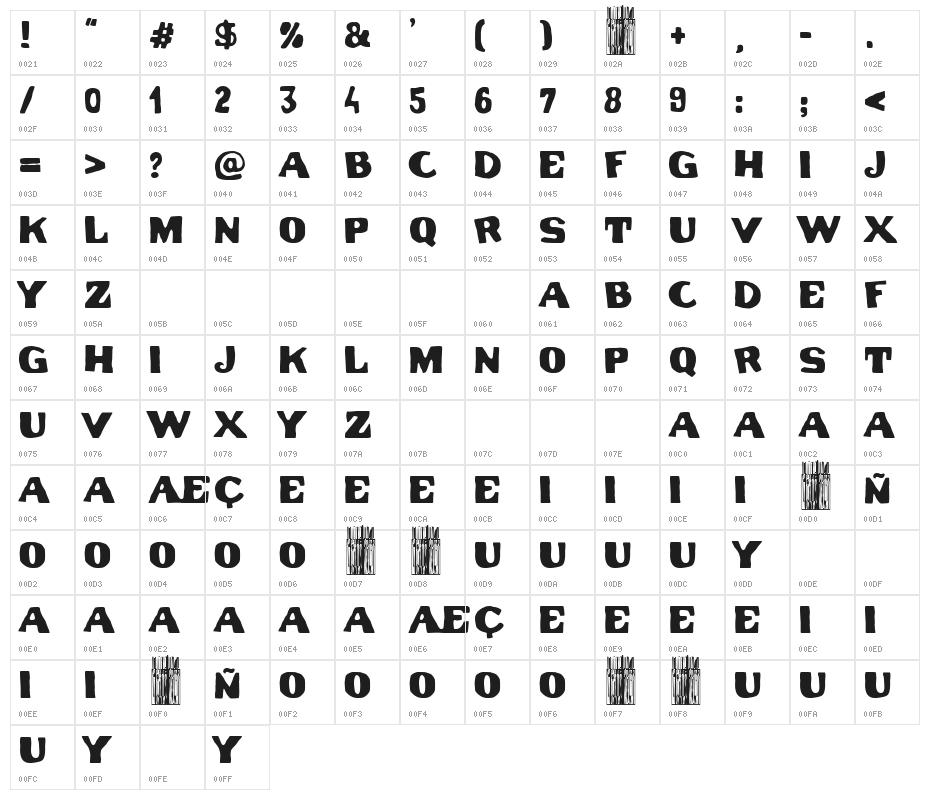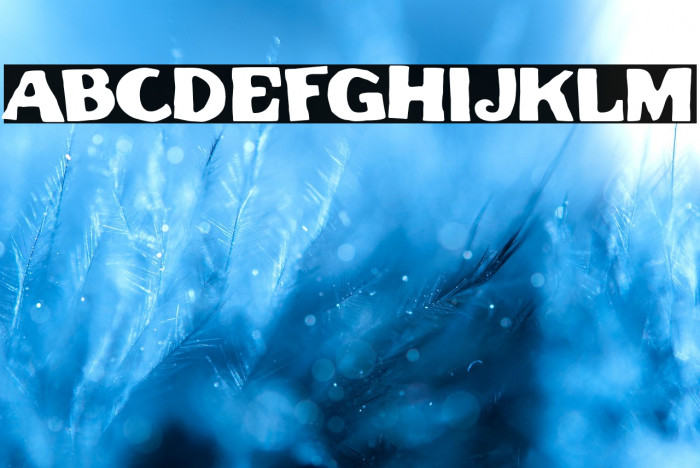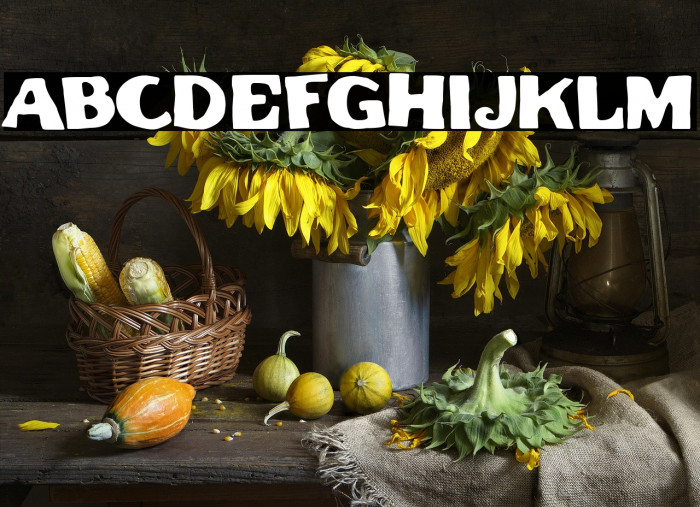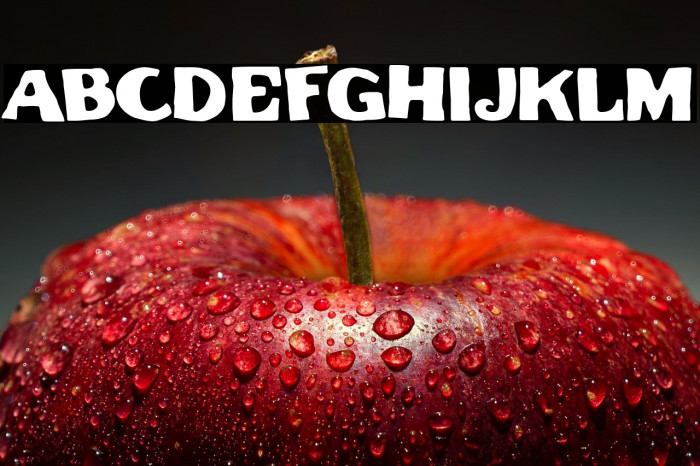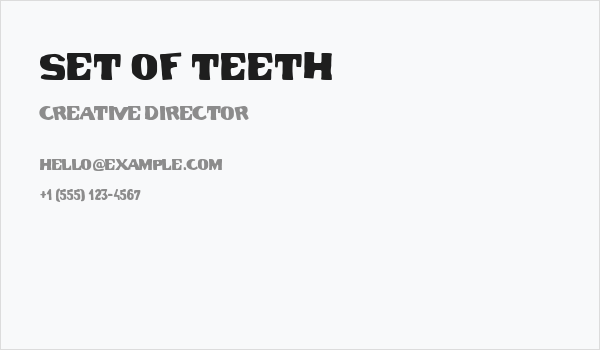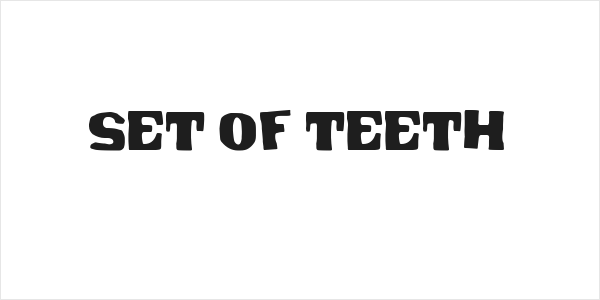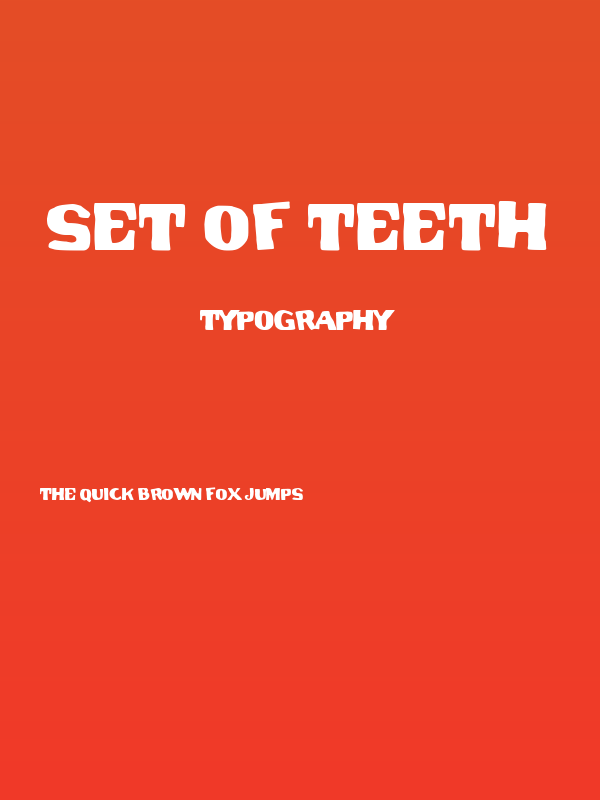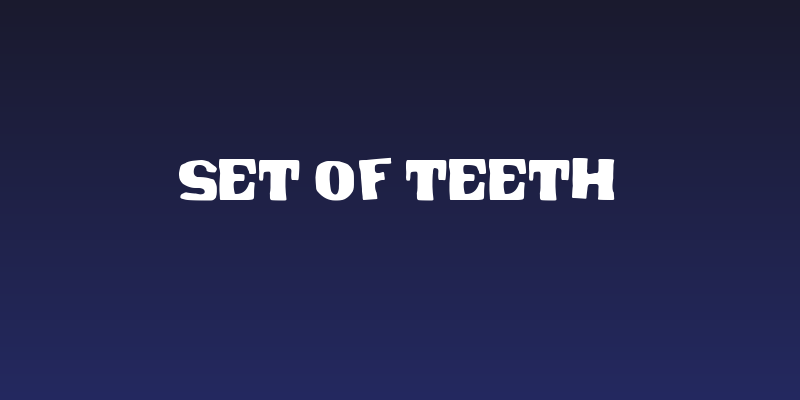
Set of Teeth Font
Set of Teeth Description
This font features a bold and playful design, reminiscent of cartoonish or comic styles. The characters have a chunky and irregular form, giving them a lively and dynamic appearance. The strokes are thick and consistent, creating a strong visual impact. The overall look is informal and fun, making it suitable for creative and lighthearted projects. The uppercase and lowercase letters maintain a consistent style, with slight variations in the curves and angles, adding to the whimsical nature of the font. The numbers and special characters follow the same playful aesthetic, ensuring a cohesive look across all elements.
| Overall Style | Playful, Cartoonish |
| Proposed Projects | Ideal for children's books, comic strips, playful branding, and party invitations. |